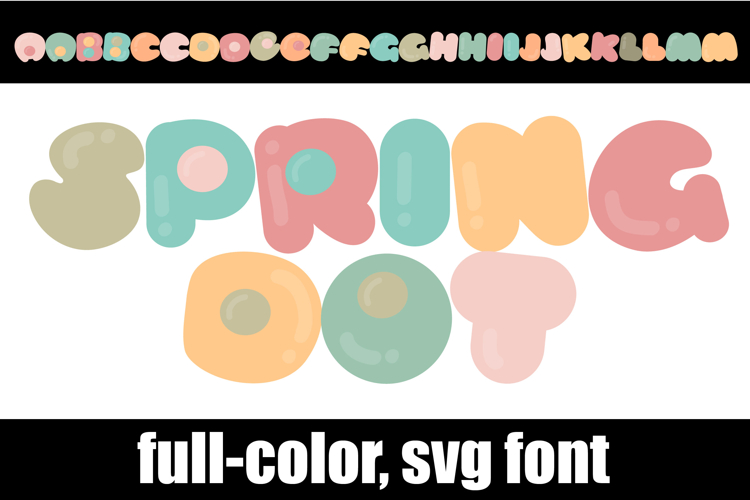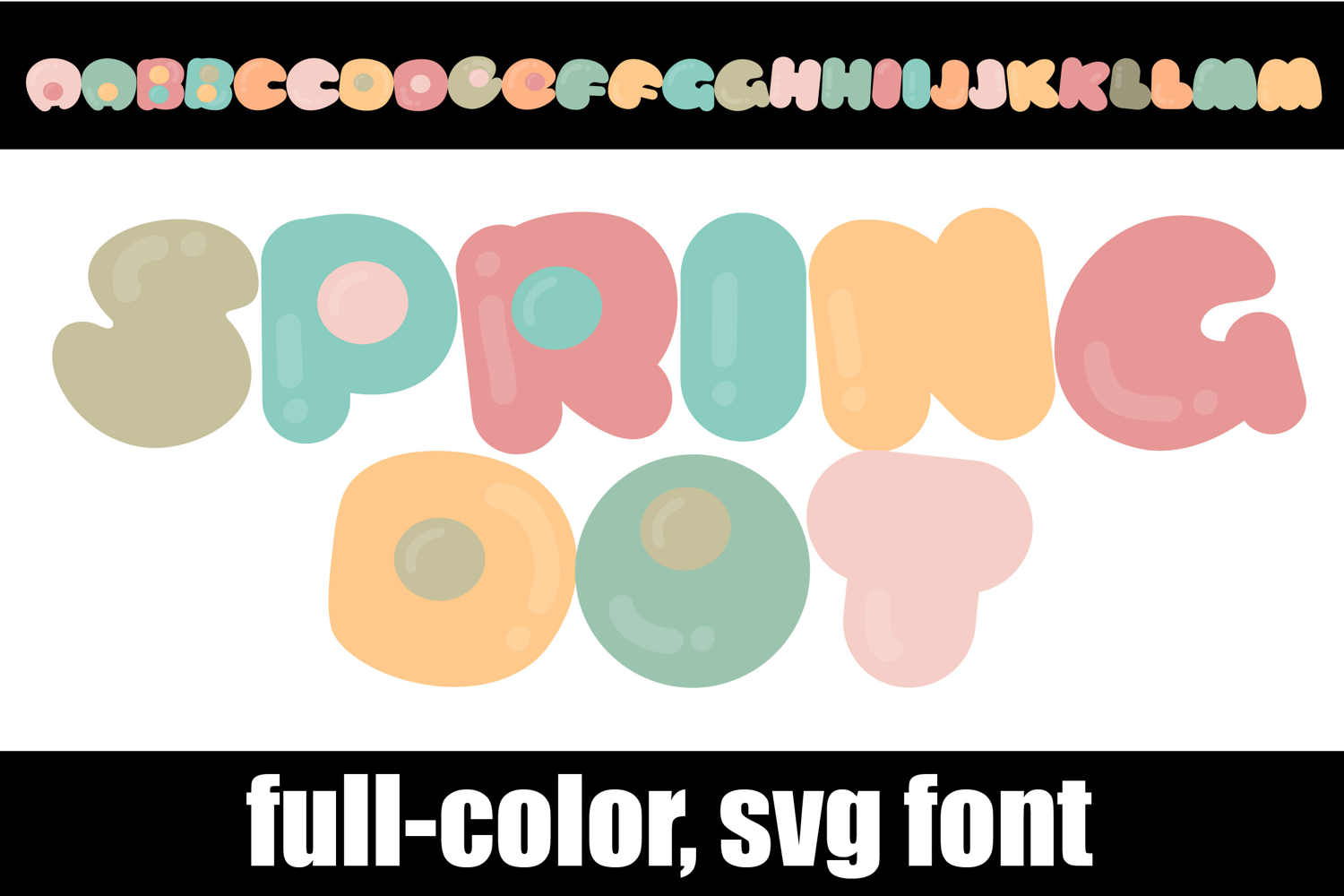
Spring Dot Color Font
This full-color, pastel-colored font features a rounded, chunky lettering style and candy-like dots. There is an alt case of each letter with a different color combination.